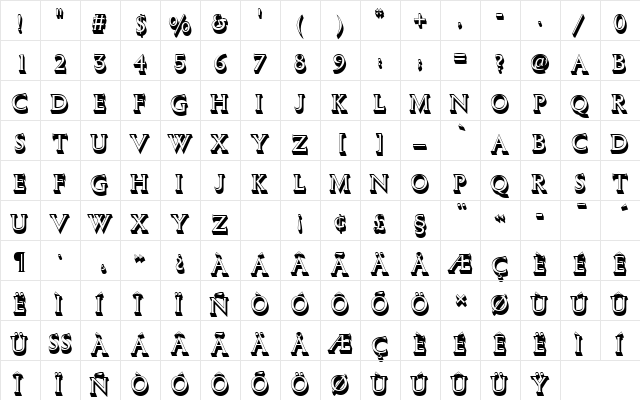
ColumnaSolDSh1 Regular
Design Context for ColumnaSolDSh1 Typeface
ColumnaSolDSh1 offers clean, dependable letterforms without strong stylistic allegiance, making it a practical choice for designers who need flexibility.